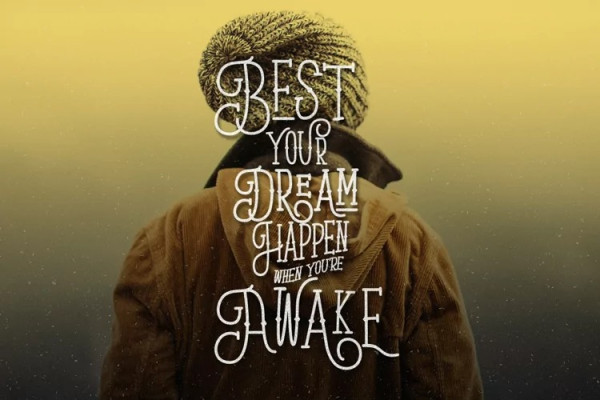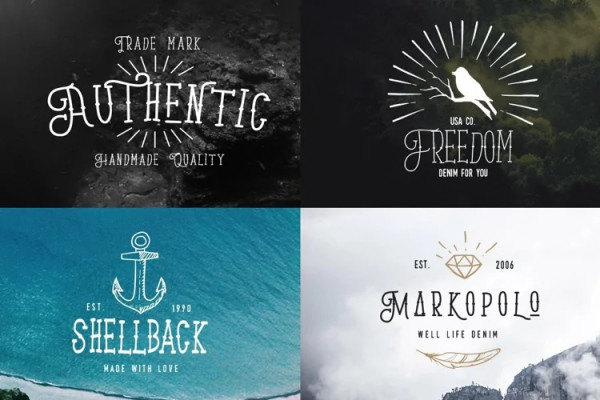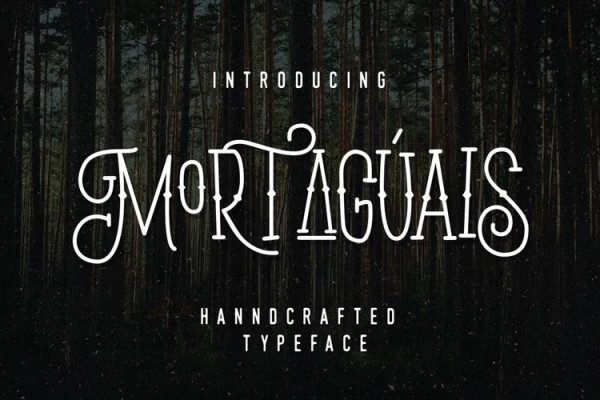
Mortaguais Font
Mortaguais Font is display font intended to use in retro and vintage design styles. It is suitable for poster, t-shirt, lettering, greeting card, etc. Foreplay contains ornamental uppercase that can be used to create a stand out and attractive message.